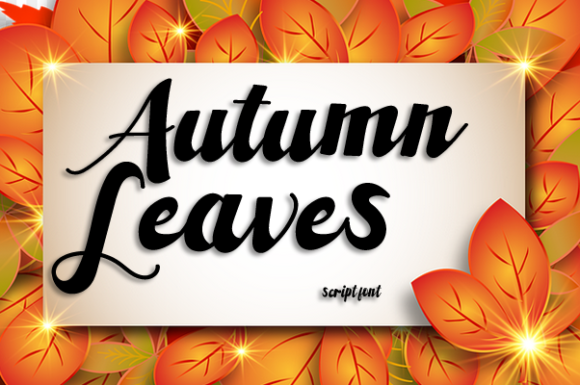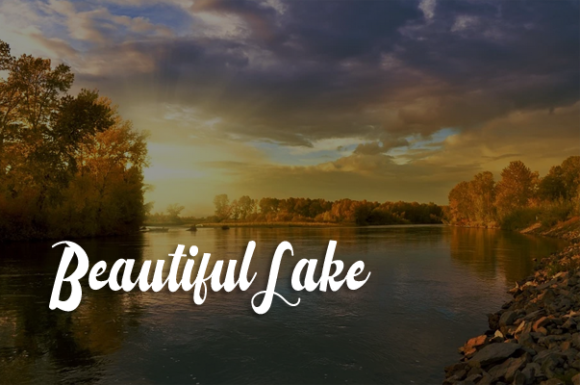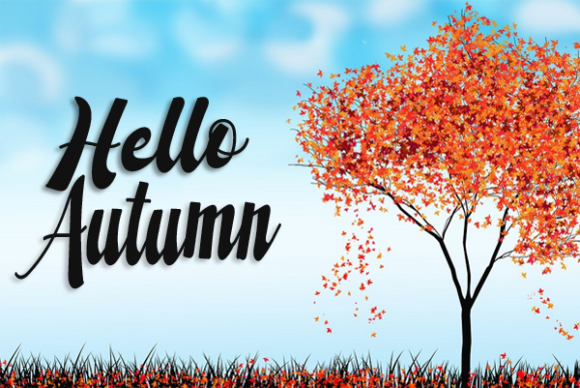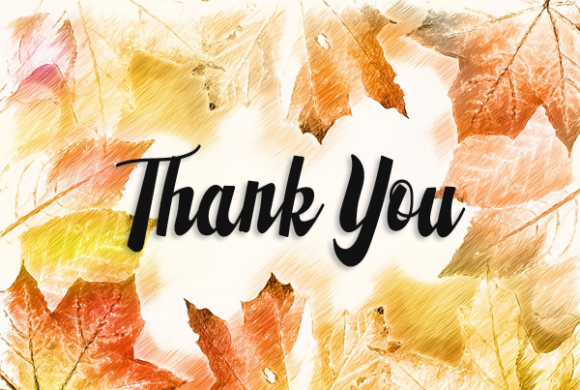
Autumn Leaves Font
About Autumn Leaves Font
Autumn Leaves is a ravishingly beautiful handwritten font. This versatile script font has a large spectrum of applications ranging from greeting cards to headlines and is guaranteed to add a romantic feel to your next project.